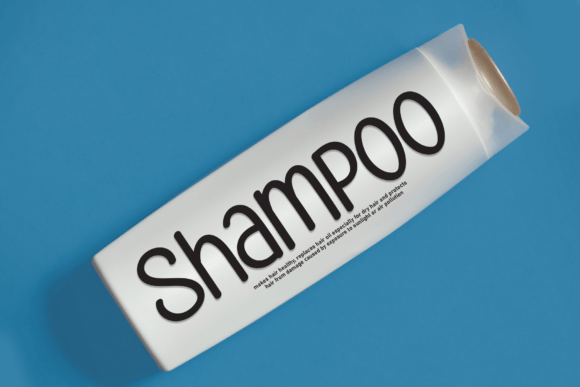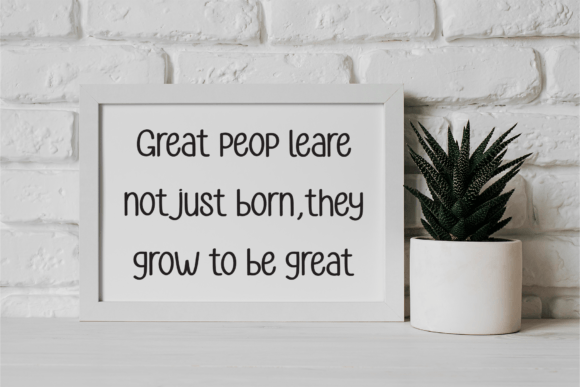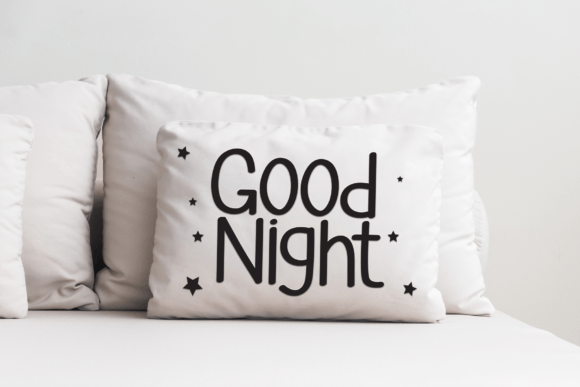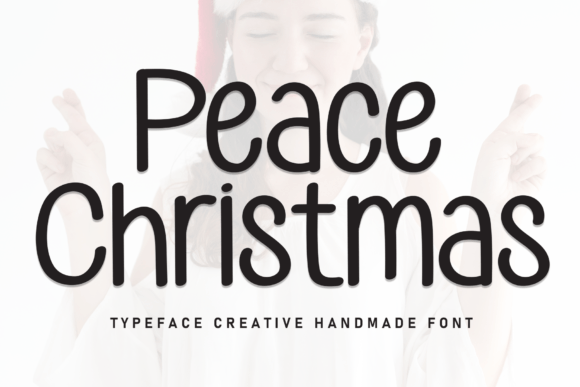
Introduction to Peace Christmas Font
Peace Christmas is a sweet and friendly handwritten display font.
Cute and fun, this font is ideal for writing wedding invitations, cards, or any other design that might need a fun touch .
Key Features of Peace Christmas Font